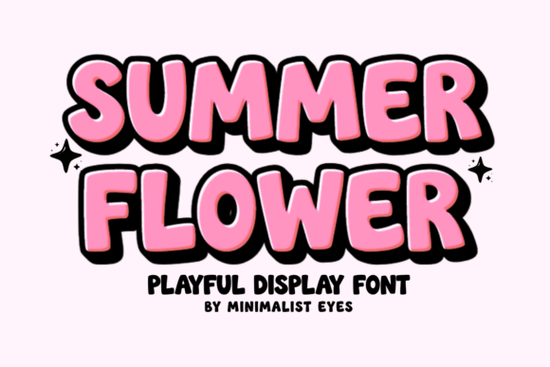
Looking for a fun, bubbly typeface that works perfectly for summer crafts and Cricut projects? Summer Flower Font is a playful display font with thick, rounded edges and a cheerful hand-drawn feel. It's designed for crafters, small business owners, and anyone who wants to add a warm, joyful vibe to their creative work from vinyl decals and T-shirts to greeting cards and party invitations.
Let's take a closer look at what this font offers, who it's best for, and how to get the most out of it in your next project.
What Makes Summer Flower Font a Good Choice for Crafters?
Summer Flower has a bold, rounded style that reads clearly at both large and small sizes. The thick strokes and smooth curves give it that handmade look without sacrificing legibility. If you've ever struggled with thin fonts that don't cut cleanly on vinyl or cardstock, you'll appreciate how this one is optimized for cutting machines like Cricut and Silhouette.
This makes it a practical pick for:
- Vinyl decals for cups, signs, and car windows
- Personalized T-shirts and tote bags
- Seasonal greeting cards and invitations
- Nursery wall art and kids' room decor
- Summer branding for small businesses and Etsy shops
- Print-on-demand products like mugs and stickers
Does It Work Well With Cricut and Silhouette?
Yes. The font files are designed to cut smoothly, which means fewer weeding headaches and cleaner results on vinyl and iron-on projects. The rounded, bold shapes hold up well when cut at different sizes something that thinner or more detailed scripts sometimes struggle with.
What Types of Projects Does It Suit Best?
Summer Flower works especially well for designs that need a fun, lighthearted tone. Think birthday party invitations, beach-themed crafts, lemonade stand signs, or baby shower decorations. The bubbly letter shapes feel approachable and friendly not too formal, not too casual.
It pairs nicely with other playful display fonts. For example, you could combine it with something chunky like Harlow Chunky for a bold headline, or pair it with Hello Angela for a softer script accent. If you're going for a slightly retro summer feel, Retro Holly could be a nice complement as well.
How Does It Compare to Other Bubbly Fonts?
If you're exploring different playful display fonts, you might also come across options like Jelly Puff or Varsity Signature. Each has its own personality some lean more sporty, others more whimsical. Summer Flower sits in that sweet spot of being cheerful and bold without being overly cartoonish.
The key thing to consider is what feel you want for your project. Summer Flower gives you that warm, hand-drawn energy that works especially well for seasonal and kid-friendly designs.
Is It a Good Fit for Print-on-Demand Sellers?
Absolutely. If you sell on platforms like Etsy, Redbubble, or Amazon Merch, having a few versatile display fonts in your toolkit saves a lot of time. Summer Flower's clean, bold shapes reproduce well on printed products, and its playful style appeals to a broad audience especially for summer-themed listings, baby products, and party supplies.
- Test the font at the size you'll actually cut or print bold fonts look great on screen but always do a test cut
- Explore the included glyphs and alternates to get more variety from one font
- Pair it with a clean sans-serif or complementary script for more polished layouts